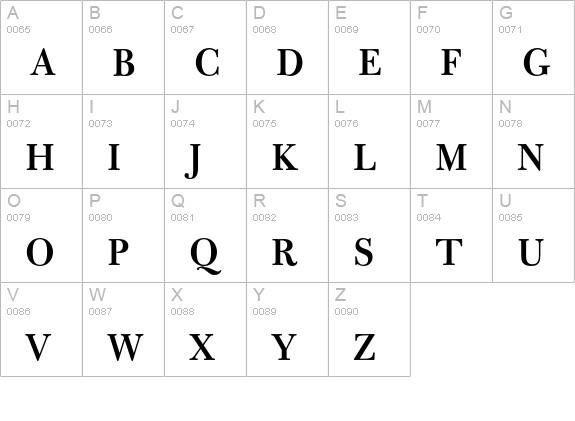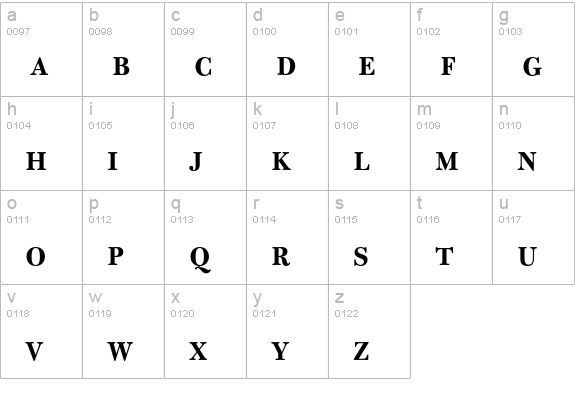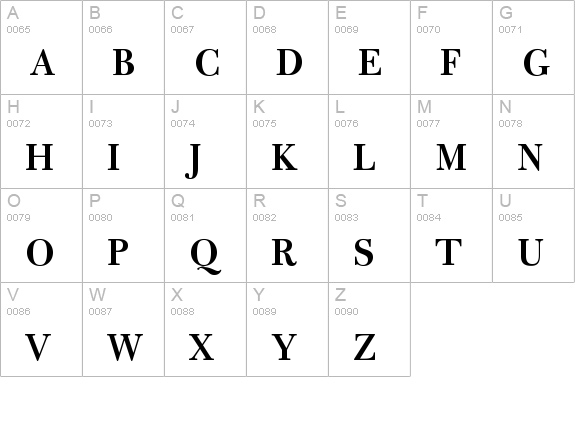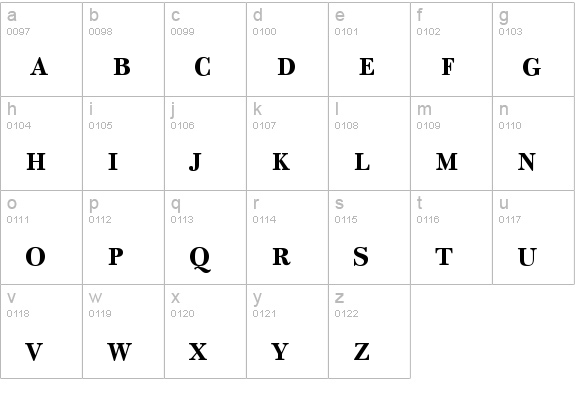
Bulmer MT SemiBold Small Caps & OldStyle Figures Font Details
Bulmer MT SemiBold Small Caps & OldStyle Figures is a sub-bold, structured variant in the Bulmer typeface family \xE2\x80\x94 well suited to sub-headlines and emphasised passages.
Bulmer MT SemiBold Small Caps & OldStyle Figures font is a versatile and elegant typeface that exudes sophistication and style. With its semi-bold weight and small caps design, this font is perfect for creating eye-catching headlines and titles. The old-style figures add a touch of classic charm to any design project. Best of all, this font is available for free download at FontsMarket.com. Whether you're working on a professional project or a personal one, Bulmer MT SemiBold Small Caps & OldStyle Figures font is sure to elevate your design to the next level. Download it today and add a touch of timeless elegance to your creations.